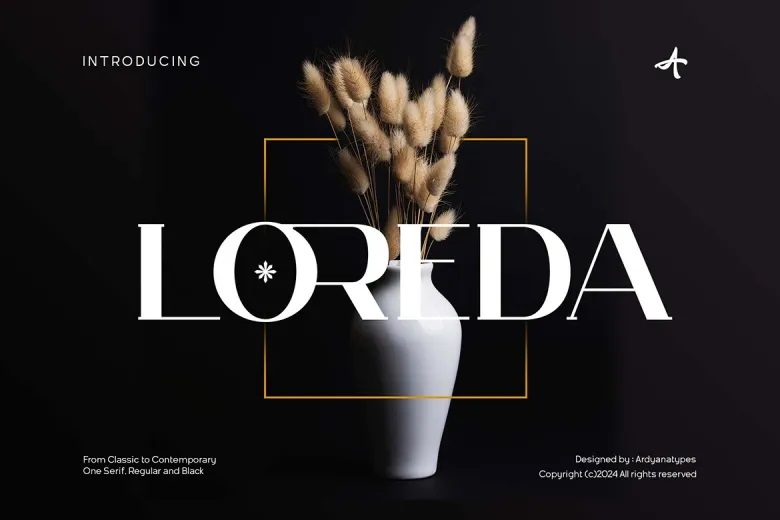
Loreda Font
Loreda is a new and modern serif font from Ardyanatypes that speaks sophistication and class. Loreda is a font that has the modern professional character for use by business organizations to enhance their corporate image through items like business cards, name tags and uniforms for example.
Loreda font can be effectively used for embossing purposes and can also be used as a sticker around your office space giving a classy look. This elegant Loreda shape also will fit well on the front of a book or a magazine article.
Loreda Serif Font